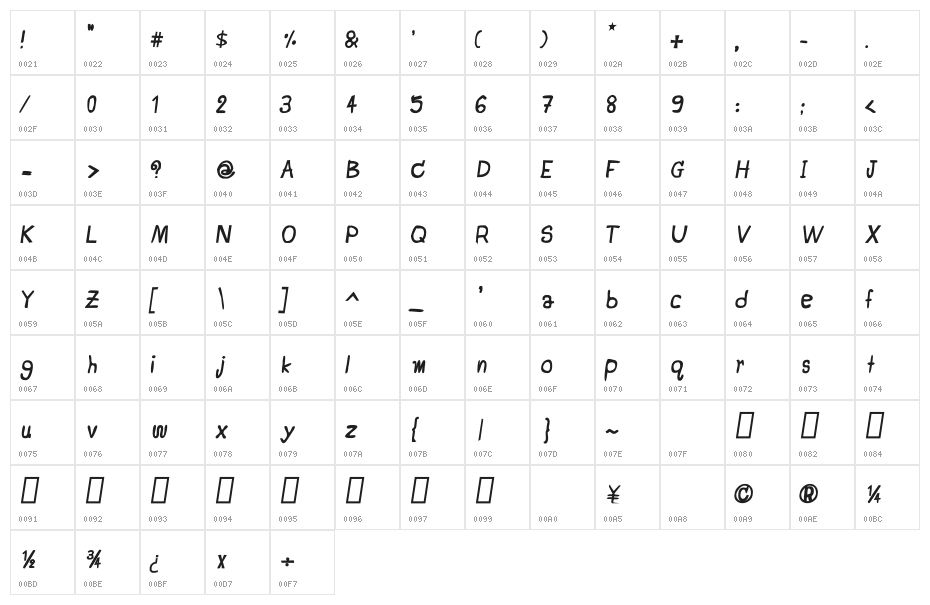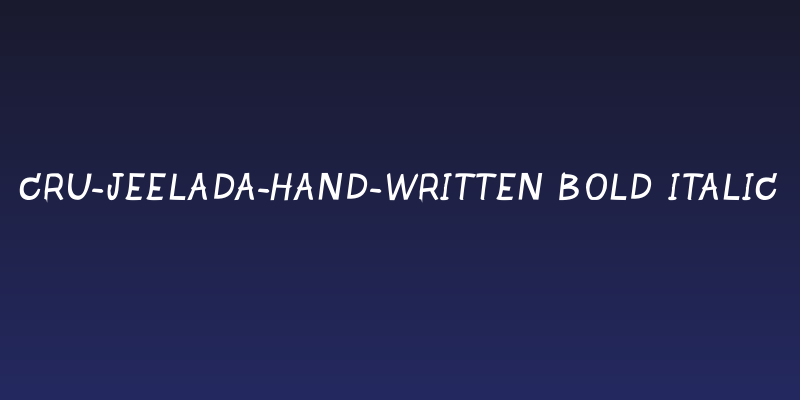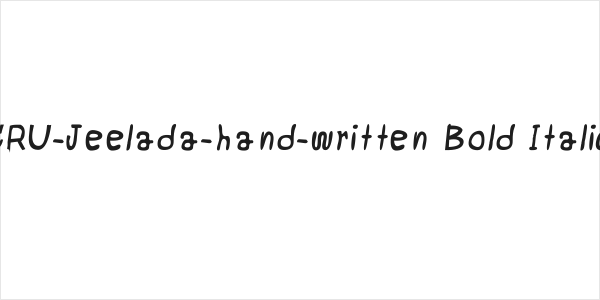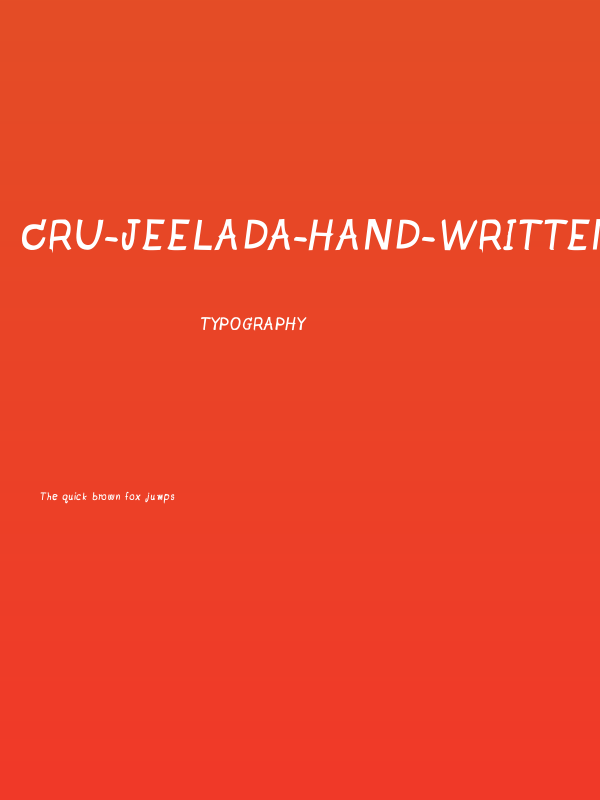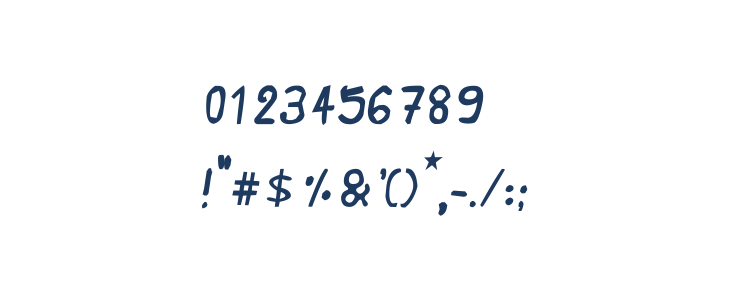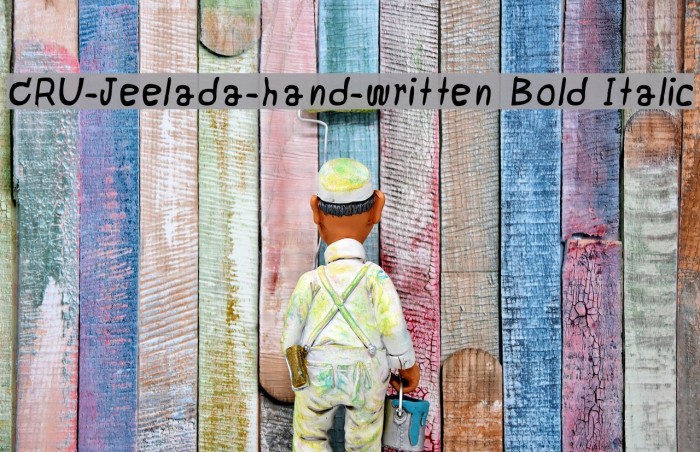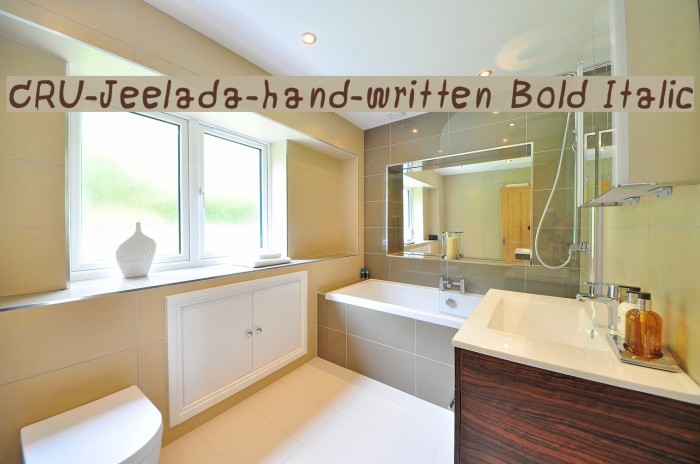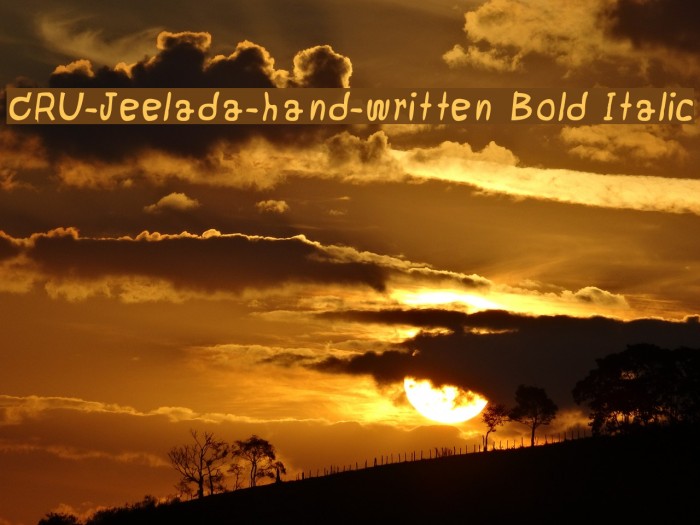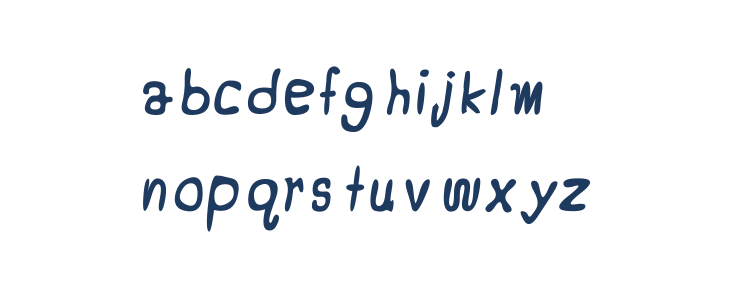
CRU-Jeelada-hand-written Bold Italic Font
CRU-Jeelada-hand-written Bold Italic Description
This font features a playful, hand-drawn style with a bold and italicized appearance. The characters have a casual, informal look, with slight variations in stroke thickness that add to its handwritten charm. The uppercase letters are slightly larger and more pronounced, while the lowercase letters maintain a consistent flow. Numbers and special characters are designed to match the overall whimsical aesthetic, making it suitable for creative and fun projects. The strokes are smooth and rounded, contributing to a friendly and approachable feel.
| Proposed Projects | Ideal for greeting cards, children's books, playful branding, and creative posters. |